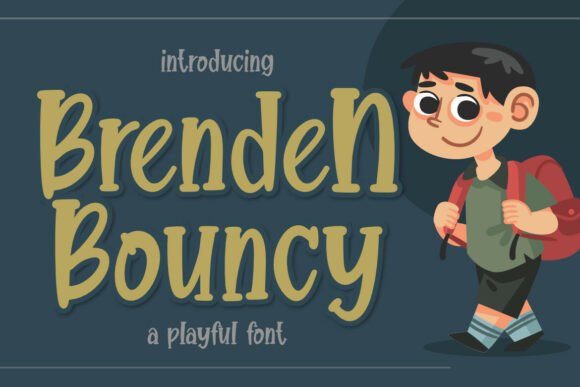
Brenden Bouncy: A Playful Font for Kids' Designs
Every designer knows the moment a project needs to radiate pure, uncomplicated joy. You’re crafting an invitation for a child’s birthday, illustrating a storybook cover, or designing a logo for a new line of children’s clothing. The text can’t just sit there; it needs to giggle, bounce, and smile back at the viewer. This is precisely the feeling that Brenden Bouncy – Playful Kids Font delivers. It’s more than a collection of letters; it’s a personality captured in type, designed to inject warmth and energetic charm into any visual communication aimed at a youthful audience.
Understanding the Typeface's Visual Personality
At its core, Brenden Bouncy is a display font with a distinctly handwritten font character. Its design philosophy is rooted in mimicry and fun. The letterforms are built on soft, rounded edges, eliminating any sharp corners that might feel harsh or formal. The curves are intentionally uneven, giving each glyph a bouncy, slightly wobbly posture that suggests movement and spontaneity. This isn't a script font trying to emulate adult cursive; it’s a creative font that feels like it was drawn with a thick marker by a happy child, full of whimsical shapes and soft strokes.
The overall appeal lies in its authenticity. It avoids the pitfalls of being overly childish to the point of illegibility. Instead, it strikes a balance, making it a surprisingly versatile premium font for specific applications. Its personality is friendly, approachable, and unapologetically cheerful, making it an excellent tool for visual storytelling. When you set a headline in Brenden Bouncy, you’re not just conveying words; you’re setting a mood that is inherently positive and engaging.
Where This Font Truly Shines: Practical Applications
Knowing where to deploy a playful kids font like Brenden Bouncy is key to its effectiveness. Its strengths are most evident in projects where brand identity needs to communicate fun, safety, and creativity.
Making It Work: Guidance for Designers and Creators
Choosing a creative font is only half the battle; using it effectively is what separates good design from great design. Here’s how to get the most out of Brenden Bouncy.
Evaluate the Project Fit: This font is a specialist. It’s not for a corporate law firm’s annual report or a luxury perfume ad. Its power is in its niche. Ask yourself: does this project need to feel fun, young, and informal? If the answer is yes, you’ve found a strong candidate.
Master the Font Pairing: Because of its expressive nature, Brenden Bouncy pairs best with quieter companions. A neutral sans serif font like Open Sans or Lato for longer text blocks creates a clean, professional foundation that lets the playful headings pop. Avoid pairing it with other decorative or highly stylized fonts, which can create visual chaos and harm readability.
Leverage Its Strengths for Hierarchy: Use it for headlines, sub-headers, or short, impactful phrases where you want to draw immediate attention and set a joyful tone. Its inherent energy makes it a powerful tool for establishing visual hierarchy, guiding the viewer’s eye to the most important message first.
In the vast landscape of modern typography, having a reliable, character-driven typeface in your toolkit is invaluable. Brenden Bouncy – Playful Kids Font isn’t trying to be everything to everyone. Instead, it excels at its specific job: bringing a burst of positive energy, friendly charm, and unmistakable joy to designs that speak to the young and the young at heart. When your project calls for that specific, sunny disposition, it’s a design asset that consistently delivers.